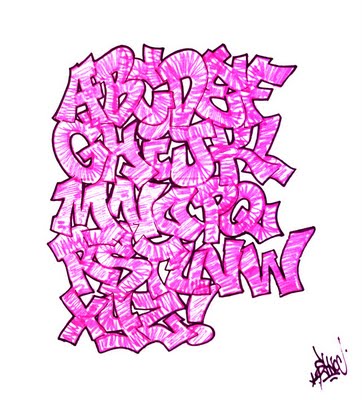
Graffiti is a style of drawing art and letters that garners most of its popularity in the inner cities, but where once graffiti was found spray painted on buildings by vandals, the art form now enjoys a margin of respect in the art world and is considered a genre of its own. Graffiti's new place in the art world has given rise to street art as a legitimate artistic genre as well. (by http://guardian-graffiti-alphabet.blogspot.com)
1. Determine the style of graffiti alphabet you want to create. Some graffiti alphabet styles include bubble, wavy and jagged. Each of these styles have specific characteristics. To make a consistent graffiti alphabet, it's important to choose one style and stay with it. Mixing styles will make your alphabet chaotic. Bubble, wavy and jagged are the oldest, most widely recognized styles. Bubble is a good beginning choice because the letters are round and fat.
2. Start with a hard tipped pencil, such as 3H or 2H. This will allow you to draw the outline of your letters lighter. Use a full sketch sheet for each letter. Start with A and work your way through the alphabet. For bubble letters, place your pencil on the paper wherever you feel comfortable and draw the letters in as few movements as possible, lifting your pencil away from the paper only when absolutely necessary to avoid crossing your parts of your letters over one another. The key is to overdraw your letters, almost in caricature style, so they look well-rounded and fat. For the bubble style, avoid using in hard, straight lines. Keep a reference chart handy until you have fully mastered the style (see Resources).
3. Draw each letter's first phase and set it aside until you have drawn each letter. Go back to your first letter with a softer pencil. A 9B is extremely soft and will give you darker output. The object is to add shading and depth to your graffiti letters by coloring the edges of each letter to fatten them up with color. Graffiti letters need a bit of a 3D effect to make them work. After you've added this dimension, go over the lighter lines with your 9B to bring them out, then add a few lines on the face of each letter to give it surface texture.
4. Use color pencils to bring your letters to life. Pastels and hot neon colors work best with graffiti. Don't be afraid to mix the colors on each letter, letting the colors overlap and blend to create odd color effects. Part of the fun of graffiti is the bright colors, so get creative with the blending.